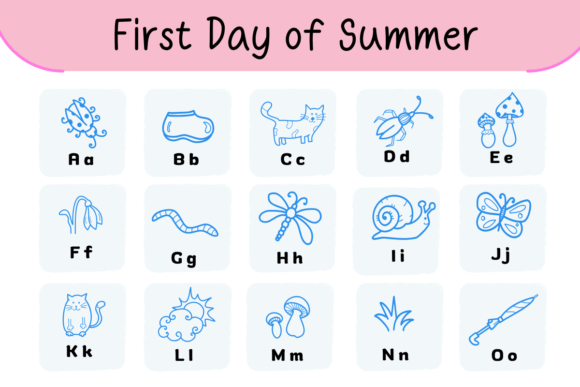
Introducing the First Day of Summer Font: Add a Sunny Touch to Your Designs
As the seasons change and summer finally arrives, you might be looking for ways to infuse your designs and projects with a playful, sun-kissed vibe. That’s where the “First Day of Summer” font comes in – a delightful, handcrafted typeface that’s bursting with fun and whimsy. In this article, we’ll dive into the world of this charming font, explore its features, and discuss how you can use it to add a dash of summer magic to your creative endeavors.
The Inspiration Behind the Font
The “First Day of Summer” font is a brainchild of creative designers who wanted to capture the essence of the season in a unique and visually appealing way. They drew inspiration from the symbols and icons that are synonymous with summer – think sunshine, ice cream, beach balls, and more. The result is a font that’s equal parts playful, carefree, and infectious.
Key Features of the Font
So, what makes the “First Day of Summer” font so special? Here are some of its standout features:
- Fun and playful design: The font boasts a range of fun and playful characters, from smiling suns to colorful ice cream cones.
- Hand-drawn illustrations: Each letter and symbol has been meticulously hand-drawn to ensure a unique, organic feel.
- Summer-themed icons: The font includes a range of summer-themed icons, such as beach balls, sunglasses, and ice cream cones.
- Multilingual support: The font supports multiple languages, making it a great choice for global projects.
Using the First Day of Summer Font in Your Designs
Now that we’ve explored the font’s features, let’s talk about how you can use it in your designs. Here are some ideas to get you started:
- Summer-themed posters and flyers: Create eye-catching posters and flyers for summer events, such as music festivals, beach parties, or outdoor concerts.
- Social media graphics: Add a splash of summer color to your social media graphics, including Facebook posts, Instagram stories, and Twitter headers.
- Wedding and party invitations: Use the font to create playful, summer-themed wedding and party invitations that set the tone for a fun and festive celebration.
- Branding and packaging: Incorporate the font into your branding and packaging designs to add a touch of whimsy and personality.
Tips for Getting the Most Out of the Font
To make the most of the “First Day of Summer” font, here are some expert tips:
- Experiment with colors: Don’t be afraid to try out different color combinations to find the perfect match for your design.
- Mix and match characters: Combine different characters and icons to create a unique, playful look.
- Use the font in conjunction with other design elements: Pair the font with other design elements, such as illustrations or photographs, to add depth and interest.